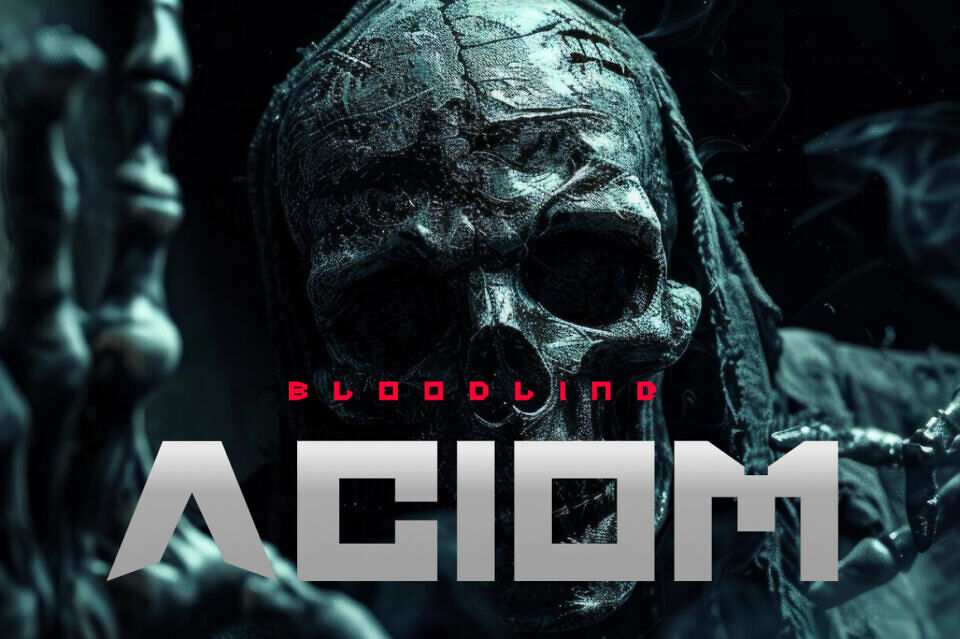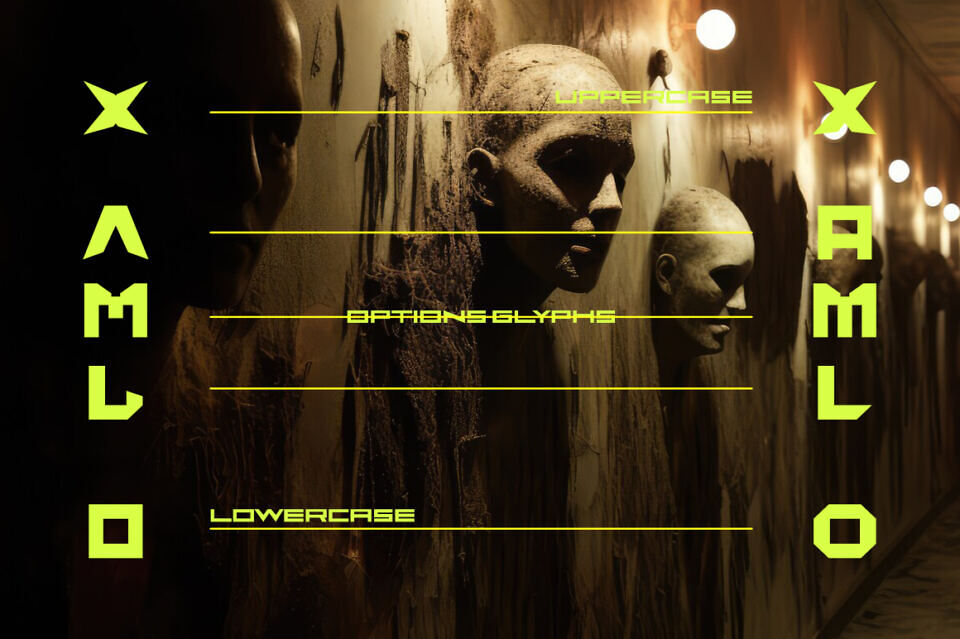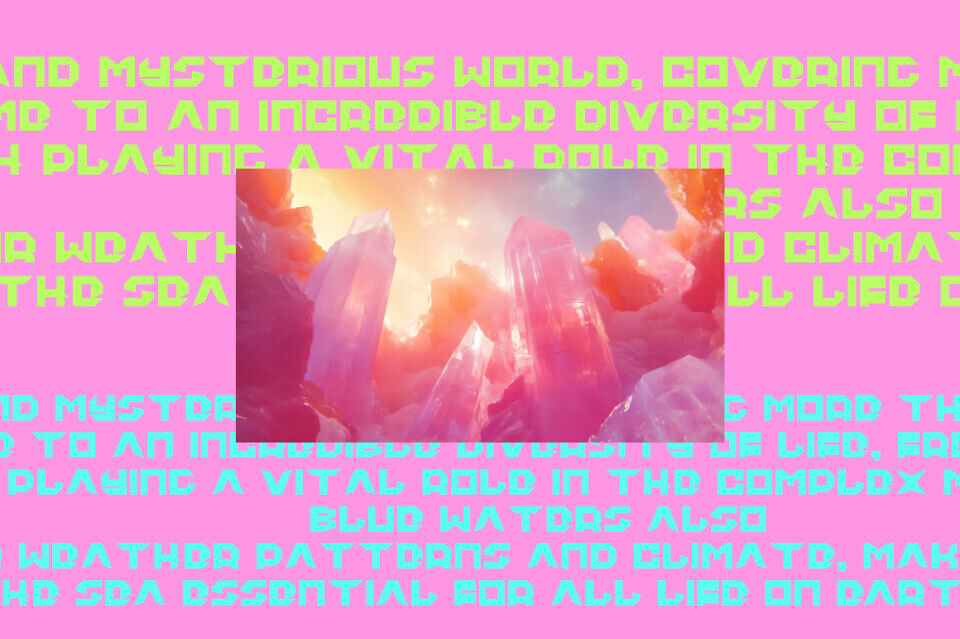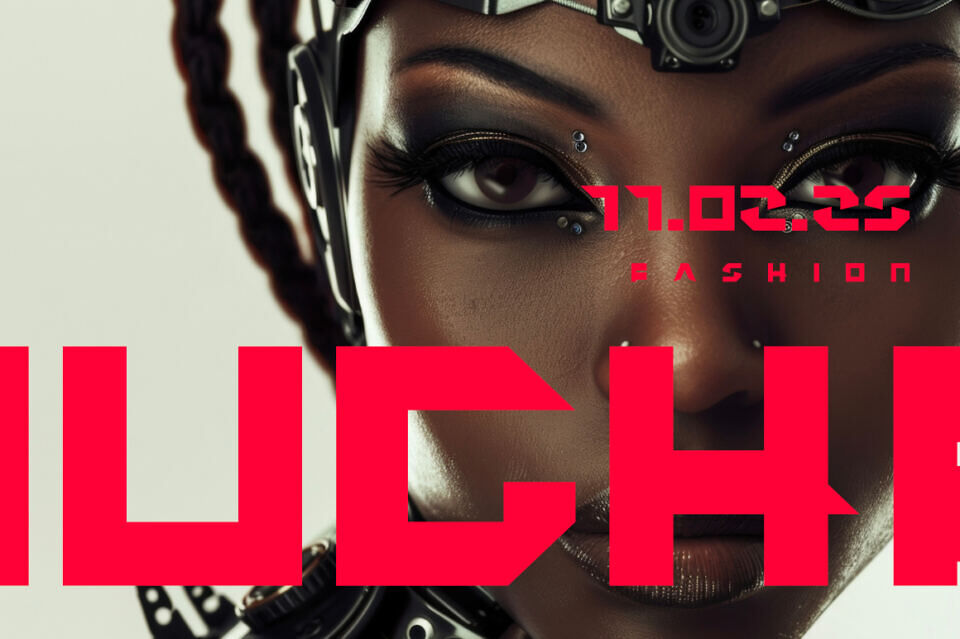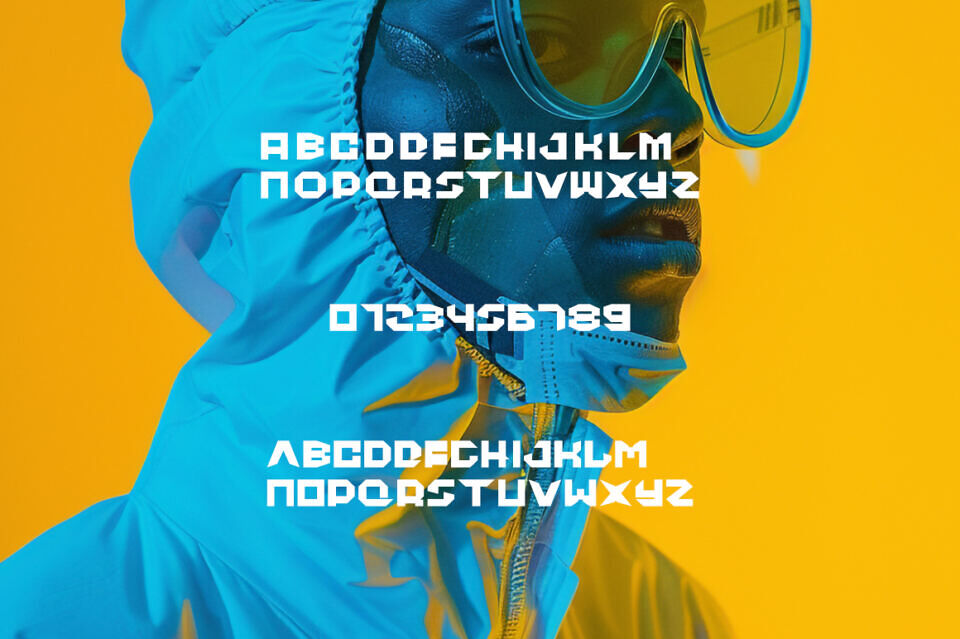
DoughF Font
DoughF is a cutting-edge, futuristic display font designed for high-impact visuals. Characterized by its thick, geometric blocks and sharp, angular incisions, it embodies a cyberpunk and sci-fi aesthetic.
This versatile typeface features distinct uppercase and lowercase glyphs, along with stylized numerical characters, making it ideal for tech-focused branding, cinematic titles, and futuristic fashion editorial designs. Whether used in neon-drenched posters or industrial UI kits, DoughF delivers a bold, robotic energy that commands attention in any digital or print landscape.